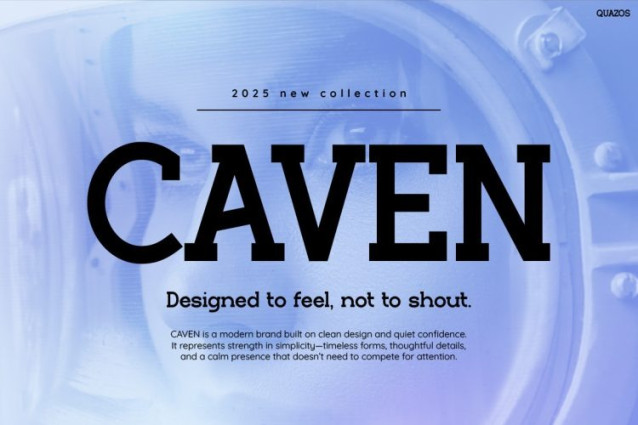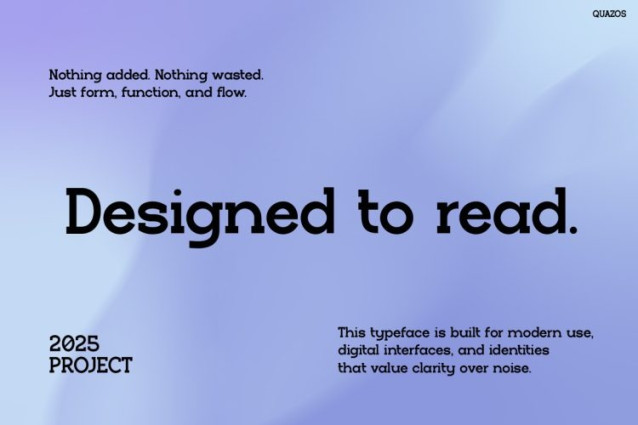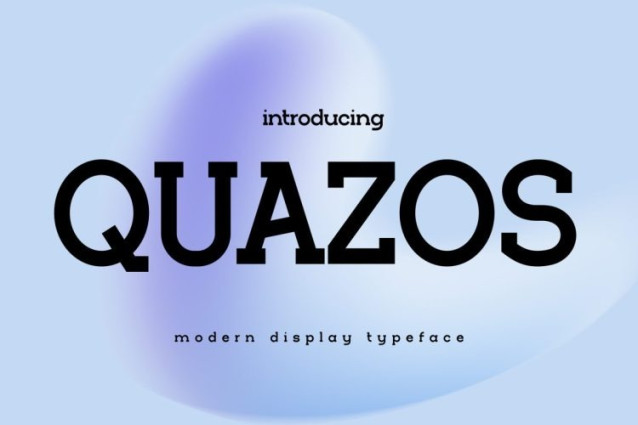
Quazos Font
Quazos Font speaks with clarity, confidence, and modern restraint. From the very first impression, this font delivers a clean futuristic tone rooted in simplicity and function. Its rounded geometry, smooth terminals, and balanced proportions create a calm yet progressive aesthetic. Moreover, Quazos removes visual noise and focuses on what truly matters: readability, structure, and modern expression. Because of its minimalist construction, every word feels intentional and thoughtful. As a result, your designs communicate intelligence, precision, and forward-thinking values without unnecessary decoration.
At the same time, Futuristic Font Quazos excels in real-world usability. The font maintains excellent legibility across sizes, screens, and layouts. Additionally, its neutral yet futuristic character allows it to blend seamlessly into modern UI, editorial layouts, and architectural visuals. Whether used for headlines, interfaces, or branding systems, Quazos feels refined and professional. Therefore, it becomes a reliable choice for designers who prioritize clarity, balance, and future-ready aesthetics.
Futuristic Font Quazos is a modern display typeface designed for clean, intelligent, and minimalist design projects. First, its soft geometric shapes create a friendly futuristic feel. Then, its consistent stroke weight ensures visual harmony across compositions. Furthermore, the font pairs beautifully with gradients, soft colors, and spacious layouts. Because of this, Quazos works perfectly in tech branding, architecture presentations, digital products, and editorial design. In addition, the font supports strong hierarchy, making it effective for headlines, captions, posters, and modern typography systems. Ultimately, Quazos helps designers communicate ideas clearly while maintaining a futuristic identity.